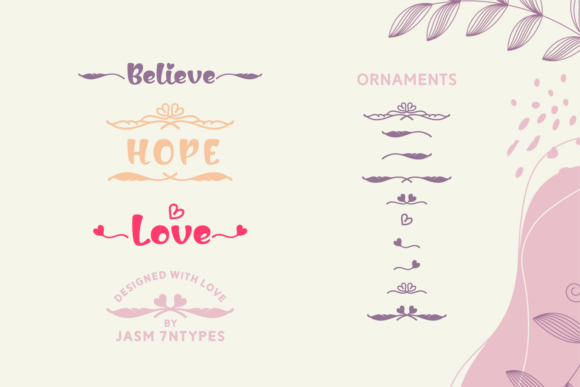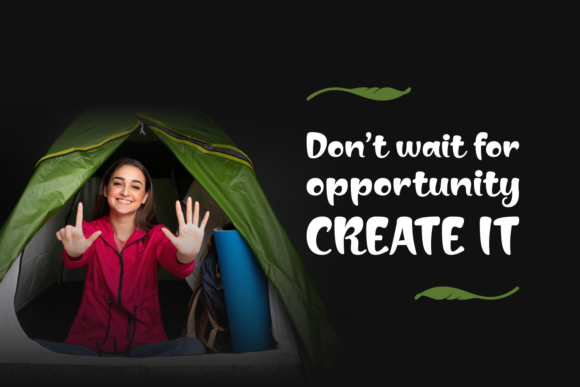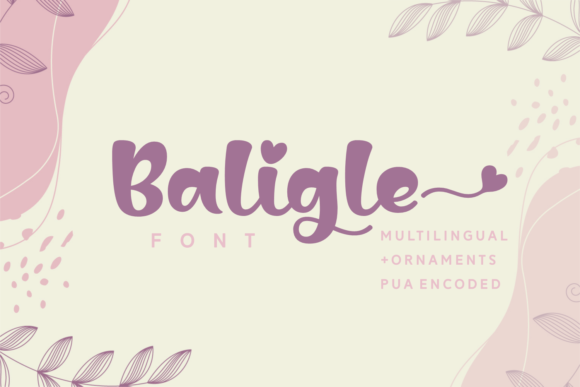
Introducing Baligle Font: The Cute and Casual Handwritten Font for Creative Projects
Are you a designer, crafter, or DIY enthusiast looking for a font that can add a touch of personality to your creative projects? Look no further than Baligle Font, a cute and casual handwritten font that is sure to delight. With its incredibly friendly feel, gorgeous swashes, and ligatures, Baligle is the perfect choice for anyone looking to turn their creative ideas into true works of art.
The Characteristics of Baligle Font
Baligle Font is a script font that boasts a range of characteristics that make it both versatile and visually appealing. Its handwritten style gives it a personal and approachable feel, making it perfect for projects that require a touch of warmth and friendliness. The font features:
- Gorgeous Swashes: Baligle Font comes with a range of swashes that can be used to add a touch of elegance and sophistication to your designs. Whether you’re creating a logo, social media graphics, or a DIY project, these swashes are sure to impress.
- Ligatures: The font also features ligatures, which are special characters that combine two or more letters to create a unique and beautiful effect. These ligatures add an extra layer of creativity to your designs and make them stand out from the crowd.
- Cute and Casual Style: Baligle Font has a cute and casual style that is perfect for designers and crafters who want to create projects that are playful, fun, and engaging. Whether you’re creating a children’s book, a craft tutorial, or a social media graphic, this font is sure to delight.
Uses for Baligle Font
Baligle Font is an incredibly versatile font that can be used for a wide range of creative projects. Here are just a few ideas to get you started:
- Instagram Fonts: Use Baligle Font to create eye-catching Instagram graphics, quotes, and stories that will engage your followers and make your feed stand out.
- Calligraphy Scripts: Baligle Font is perfect for calligraphy scripts, making it a great choice for DIY projects, such as hand-lettered signs, cards, and invitations.
- Logo Design: The font’s unique style and swashes make it a great choice for logo design. Use it to create a custom logo for your business or brand that is both memorable and visually appealing.
- Crafting and Scrapbooking: Baligle Font is a great choice for crafters and scrapbookers who want to add a personal touch to their projects. Use it to create titles, headings, and journaling cards that are both beautiful and meaningful.
Why Choose Baligle Font?
So why choose Baligle Font over other fonts on the market? Here are just a few reasons:
- Unique Style: Baligle Font has a unique style that is both cute and casual, making it perfect for designers and crafters who want to create projects that stand out from the crowd.
- High-Quality Design: The font is designed with high-quality in mind, featuring gorgeous swashes and ligatures that will make your projects look professional and polished.
- Easy to Use: Baligle Font is easy to use, even for those who are new to design or crafting. Its friendly feel and versatile style make it a great choice for anyone looking to create beautiful projects.
In conclusion, Baligle Font is a must-have for designers, crafters, and DIY enthusiasts who want to add a touch of personality to their creative projects. With its cute and casual style, gorgeous swashes, and ligatures, this font is sure to delight. Whether you’re creating Instagram graphics, calligraphy scripts, or DIY projects, Baligle Font is the perfect choice. So why wait? Download Baligle Font today and start turning your creative ideas into true works of art!